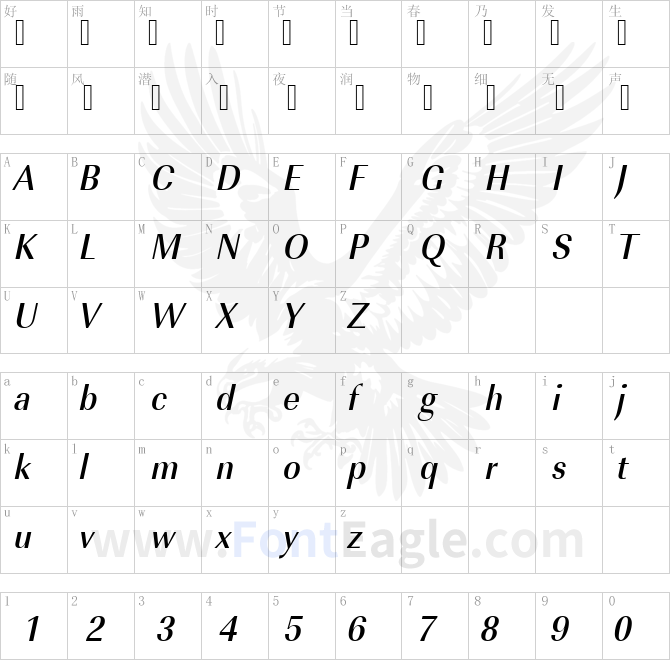
URWImperialTMedExtNar Oblique.ttf Font Image
- Font name:URWImperialTMedExtNar
- Font Subfamily ID:URW:URWImperialT-MediExtrNarrObli:1994
- Font Full Name:URWImperialTMedExtNar Oblique
- Postscript:URWImperialT-MediExtrNarrObli
URWImperialTMedExtNar Oblique.ttf Characters Sample